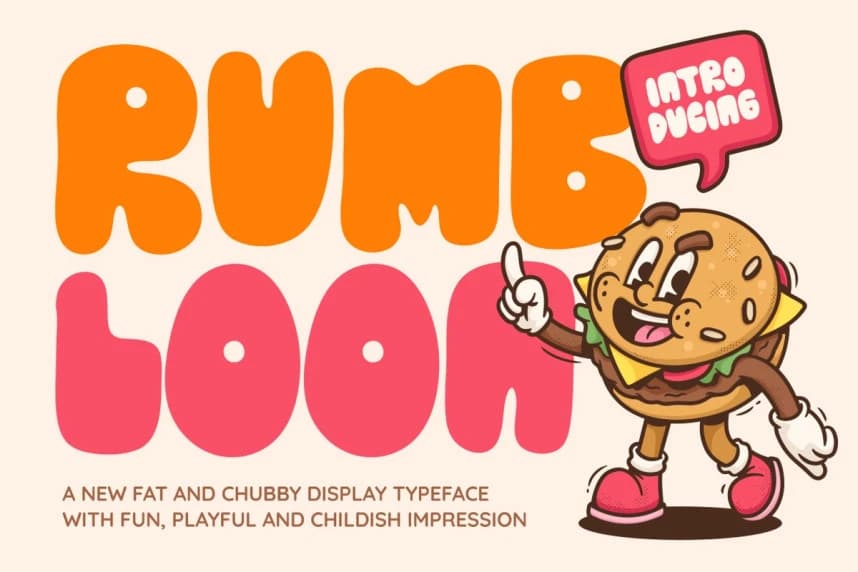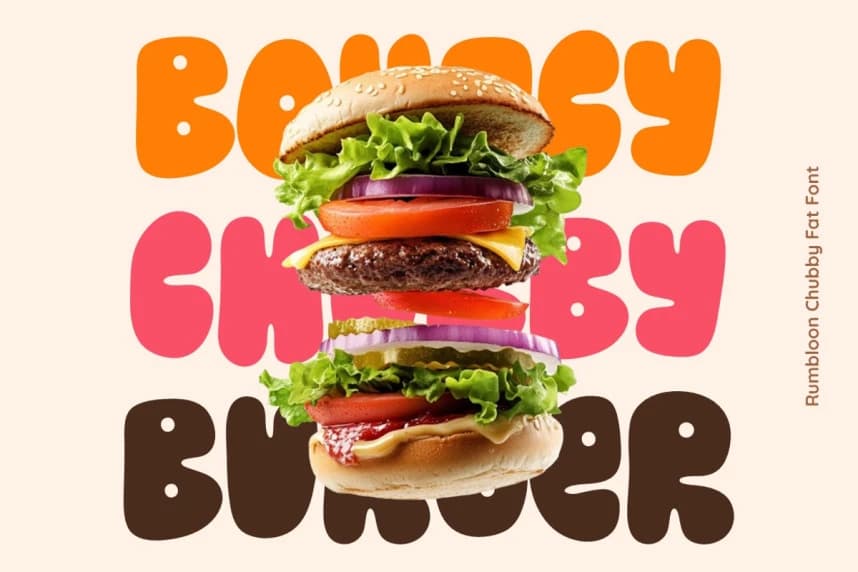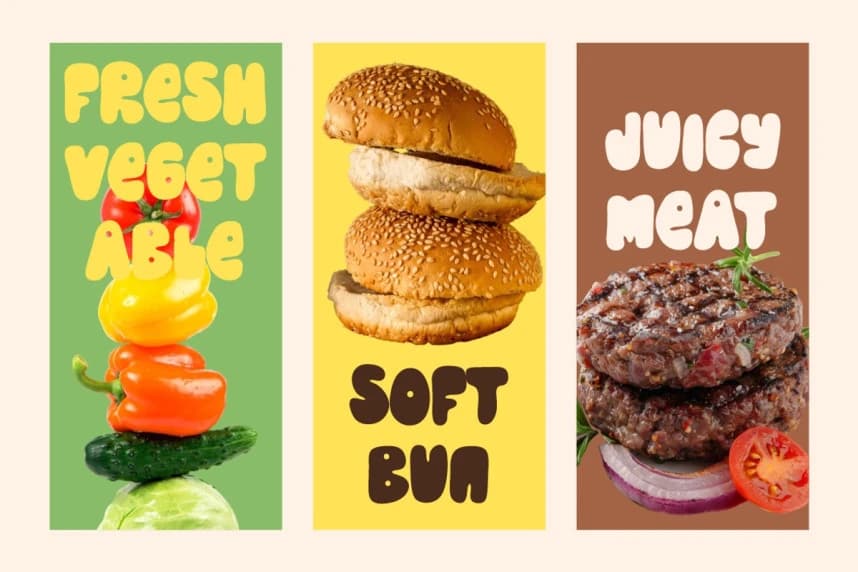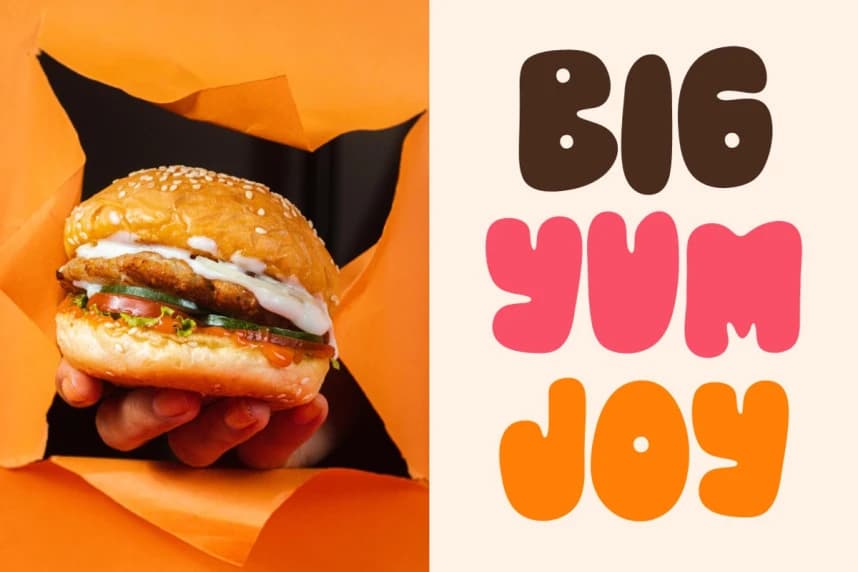
Rumbloon Display Font
Rumbloon Display Font is a bold and bubbly typeface designed to bring instant fun and character to your projects. With its oversized curves and chubby proportions, this font radiates a playful energy that instantly captures attention.